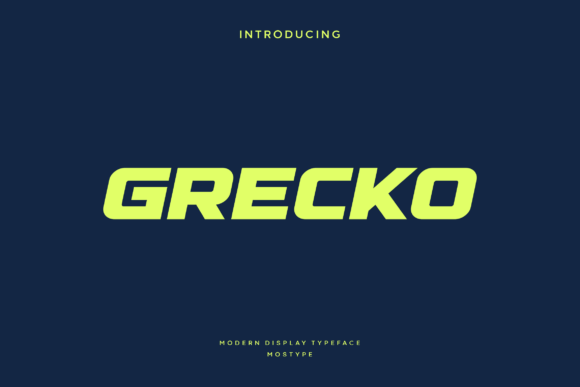
Introducing Grecko Font: Elevate Your Designs with Visual Elegance
In the world of typography, a font can make or break the visual appeal of a design project. For designers, marketers, and businesses, finding the perfect font that conveys elegance, sophistication, and creativity is a constant quest. This is where Grecko Font comes into play – a stunning display sports font that embodies visual elegance and smooth curves, making your work look true and attractive.
What Makes Grecko Font Stand Out?
Grecko Font is a versatile and stylish typeface designed to elevate your designs to the next level. Its key features include:
- Visual Elegance: Grecko Font boasts a sleek and sophisticated design, perfect for creating stunning visual content that captures attention.
- Smooth Curves: The font’s smooth curves and lines ensure a seamless reading experience, making it ideal for a wide range of applications.
- Display Sports Font: Grecko Font is specifically designed as a display sports font, making it perfect for projects that require a bold and dynamic look.
Endless Possibilities: Where to Use Grecko Font
Grecko Font is an incredibly versatile typeface that can be used in a wide variety of projects, including:
- Invitations: Create stunning invitations for events, weddings, or parties with Grecko Font.
- Logos and Branding: Establish a strong brand identity with Grecko Font, perfect for logos, business cards, and marketing materials.
- Magazines and Photography: Add a touch of elegance to your magazine layouts, photography projects, or editorial content.
- Cards and Product Packaging: Use Grecko Font for designing beautiful cards, product packaging, or labels that stand out.
- Mugs and Quotes: Create eye-catching designs for mugs, quotes, or posters that showcase your creativity.
- Posters and Labels: Grecko Font is perfect for designing striking posters, labels, or signage that grab attention.
- Signatures and More: Use Grecko Font to add a personal touch to your signatures, or explore other creative projects.
A Font for All Business Sectors and Personal Projects
Grecko Font is a versatile typeface that can be used across various business sectors and personal projects, including:
- Personal Projects: Add a touch of elegance to your personal projects, such as blogs, portfolios, or social media graphics.
- Studios and Creative Agencies: Grecko Font is perfect for studios, creative agencies, or design firms looking for a sophisticated font.
- Corporate and Industrial: Use Grecko Font for corporate branding, industrial designs, or company marketing materials.
- Company and Business: Establish a strong brand identity with Grecko Font, suitable for businesses of all sizes.
Tips for Using Grecko Font Effectively
To get the most out of Grecko Font, consider the following typography tips:
- Pair with Complementary Fonts: Combine Grecko Font with complementary fonts to create visual interest and hierarchy.
- Experiment with Colors: Try out different color schemes to find the perfect match for your Grecko Font design.
- Pay Attention to Spacing: Ensure adequate spacing between letters and lines to maintain readability and visual flow.